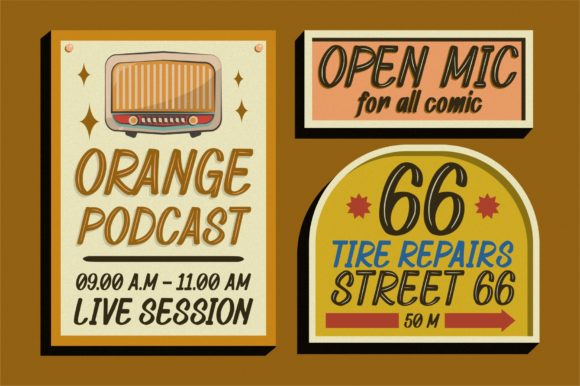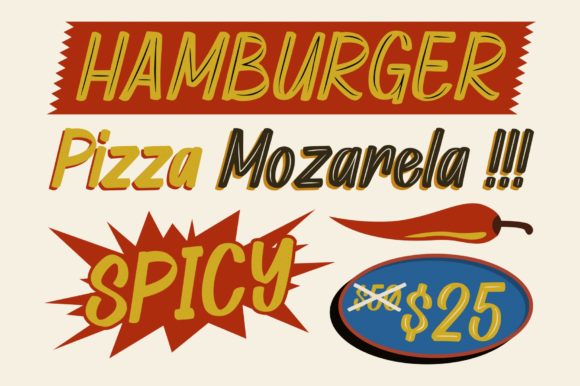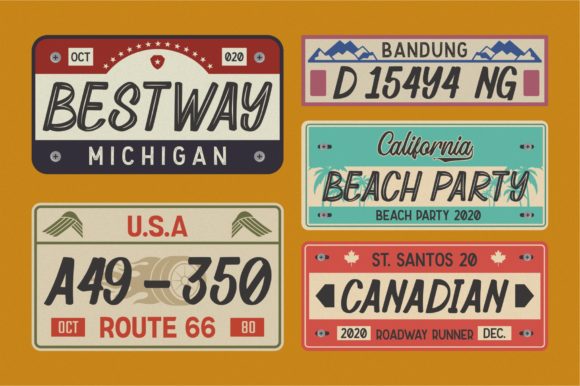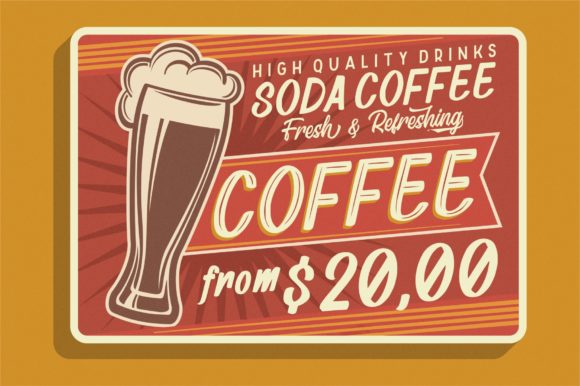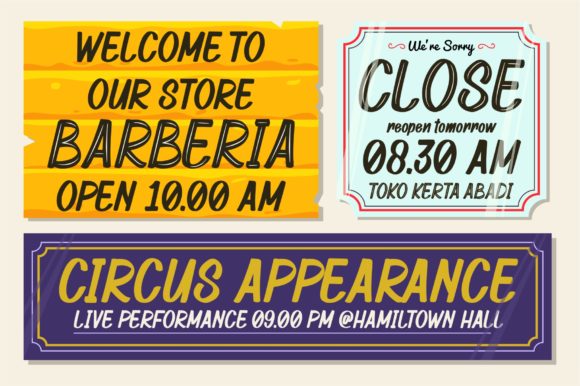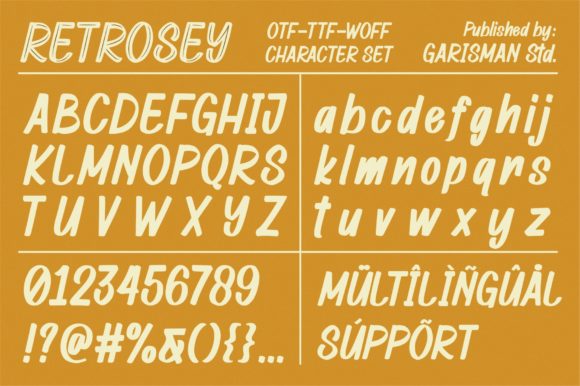
Introduction to Retrosey Font
Retrosey is a simple yet unique, retro styled display font.
It can be used for various purposes such as logos, wedding invitations, headings, t-shirts, letterhead, signage, labels, news, posters, badges and so much more .